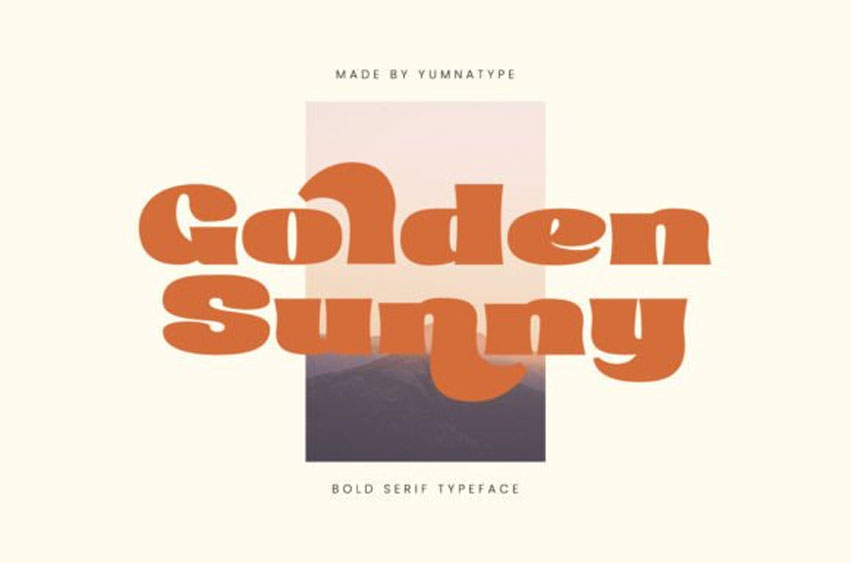
Golden Sunny Font
Golden Sunny Font is a delightful serif font that radiates warmth and charm with its modern design and rounded letterforms.
Crafted with a thick weight and a gentle curvature to its shapes, this font exudes a sense of friendliness and approachability.